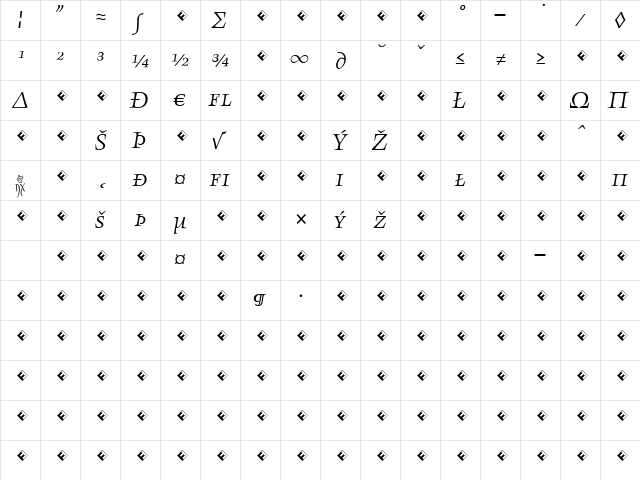
AngkoonTF-RegularItalicSCExp Regular
| Foundry | Xavier Dupre, published by FontShop International for the FontFont Library |
| Designer | Xavier Dupre |
Design Context for AngkoonTF-RegularItalicSCExp Typeface
AngkoonTF-RegularItalicSCExp is a composed and adaptable typeface that performs quietly and consistently across a wide range of design contexts. Its italic angle brings a sense of urgency and motion to the letterforms.